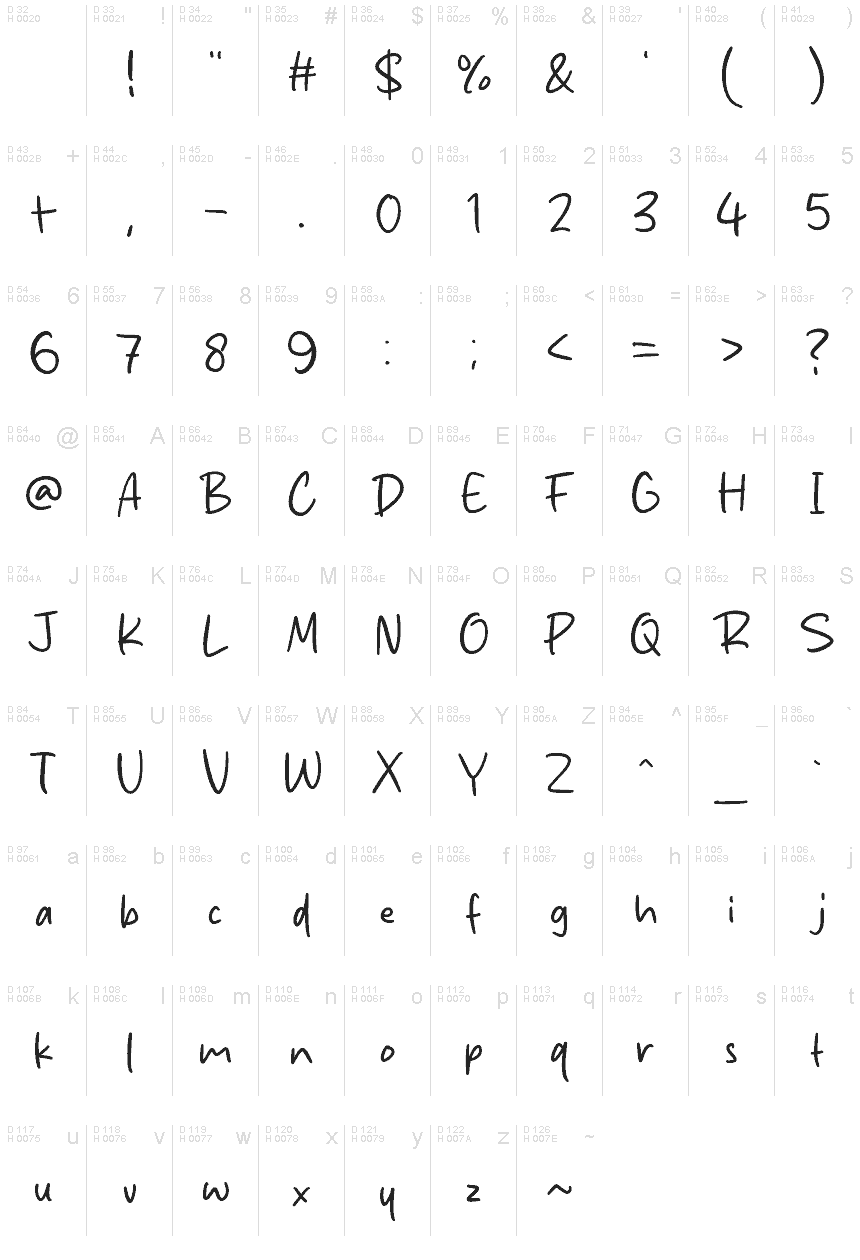
Roading Night
Roading Night font by MJType is a handwritten typeface with playful and comic letterforms. With wide proportions, these rounded letters stand out with their simple lines and beautiful composition. The letters have a natural appearance with abrupt endings, mostly noticeable in the lowercase set of this free handwritten font.
In particular, use Roading Night to prepare artwork for kids’ books or magazines. Whether used for decoration purposes or writing body text or headings, the result will always be remarkable. PowerPoint templates informally designed movie titles, wall art prints, postcards, and more can benefit from being accompanied by lovely handwritten typography.